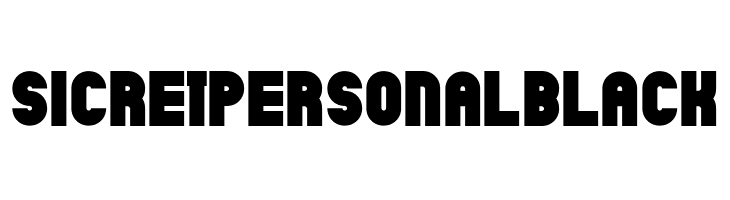
( Fonts by Typodermic Fonts )
A bold, italic font with a playful and dynamic style.
( Fonts by Typodermic Fonts )
A bold, playful, and hand-drawn style font with rounded characters.
( Fonts by Typodermic Fonts )
A playful, hand-drawn font with rounded edges and a whimsical style.
( Fonts by Typodermic Fonts )
A casual, handwritten-style font with a slight slant and smooth, flowing lines.
( Fonts by Typodermic Fonts )
A bold, playful font with rounded, slightly irregular shapes.
( Fonts by Typodermic Fonts )
A bold, italicized font with a playful and dynamic style.
( Fonts by Typodermic Fonts )
A bold, italicized, and playful font with rounded strokes and a dynamic style.
( Fonts by Press Gang Studios )
A bold, brush-style font with dynamic and expressive strokes.
( Fonts by Press Gang Studios )
A bold, hand-drawn font with dynamic, slanted characters.
( Fonts by Press Gang Studios )
A bold, italic script font with dynamic, brush-like strokes.
( Fonts by Press Gang Studios )
A bold, italicized font with dynamic, brush-like strokes.
A sleek, modern, and slightly italicized font with a light and airy feel.
A modern, geometric font with a clean and futuristic design.
A geometric, modern font with clean lines and a minimalist aesthetic.
A sleek, modern italic font with geometric precision and a futuristic aesthetic.
A bold, geometric font with a modern and technical style.
A bold, italicized font with a modern, dynamic style.
( Fonts by Vic Fieger )
A bold, geometric font with uniform stroke widths and a modern aesthetic.
A playful, informal handwritten font with irregular strokes and a casual feel.
( Fonts by Maelle.K - Thomas Boucherie )
A playful, bold font with rounded edges and a hand-drawn look.
( Fonts by Molloy Han )
A bold, hand-drawn font with a rugged, artistic style.
( Fonts by Maelle.K - Thomas Boucherie )
A lively, dynamic handwritten font with smooth, continuous strokes.
( Fonts by Geronimo )
A playful, cartoonish font with bold, rounded outlines and a whimsical style.
A playful, hand-drawn font with a bold, textured style.
A playful, handwritten font with tall, narrow characters and a casual style.